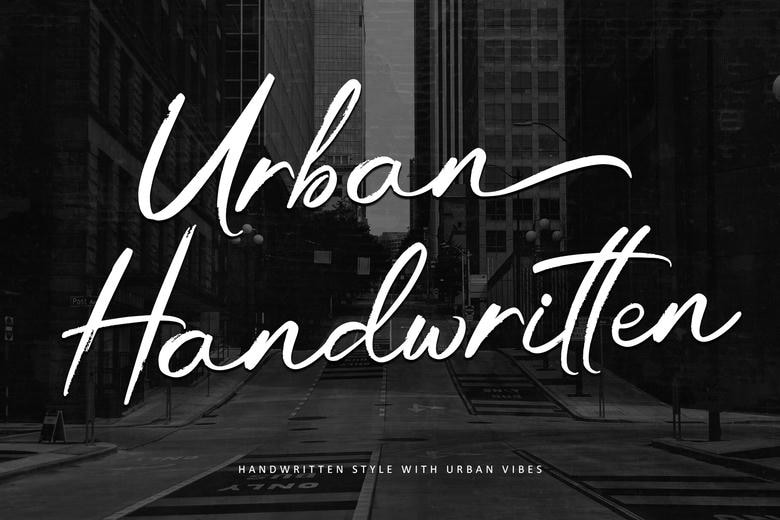
Urban Handwritten is a natural brush script typeface that embodies pure energy and natural allure. This font comes with dark, animated strokes and natural brush feel, making it add a vibrant, handwriting look to your designs. Urban Handwritten is perfect with logos, posters, packaging and branding and offers a very strong and fluid weight.
The flowing nature of it makes each word memorable with personality, and PUA encoding, allows easy access to all expressive glyphs and substitutes. Raise your designs with Urban Handwritten, a font that looks good with an easy blend of modernity and a rough, artistic touch.
Urban Handwritten Script Font